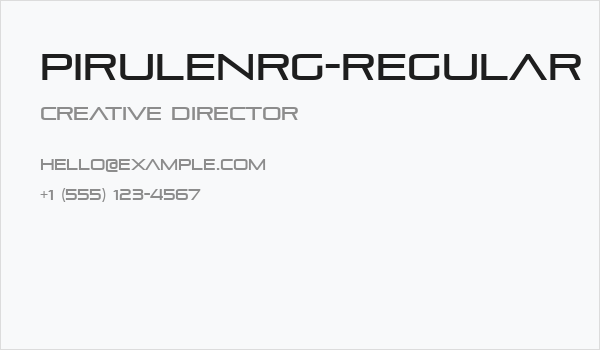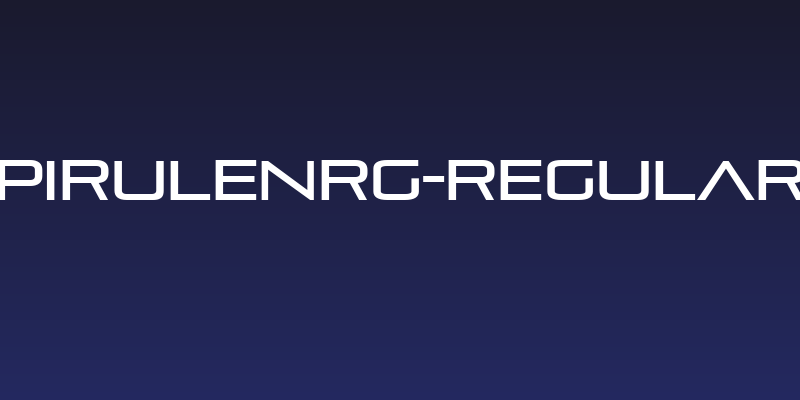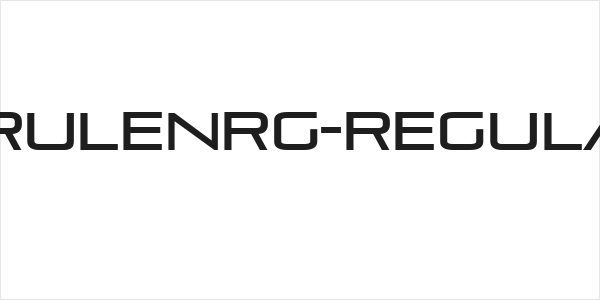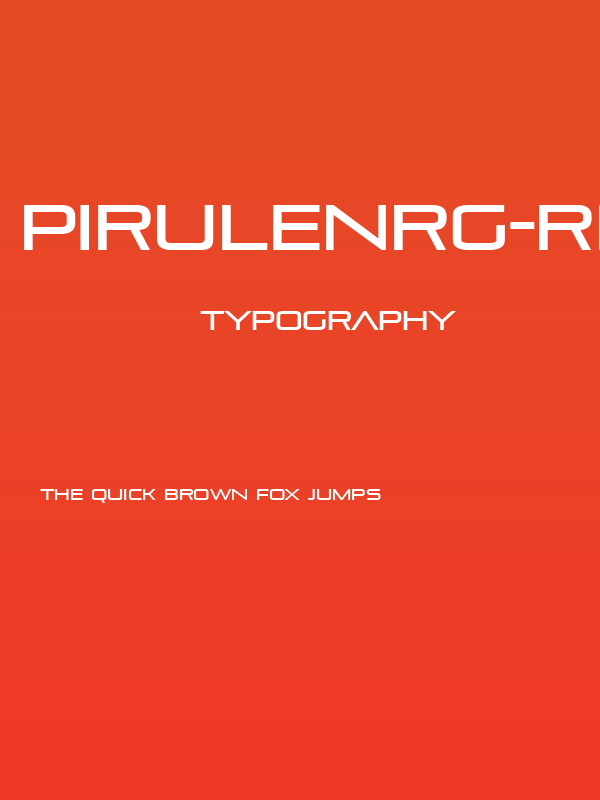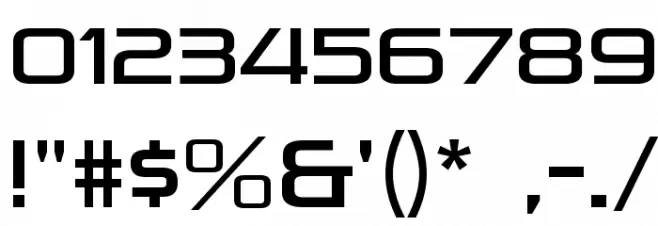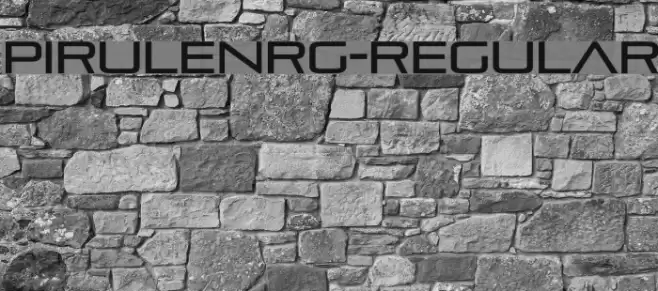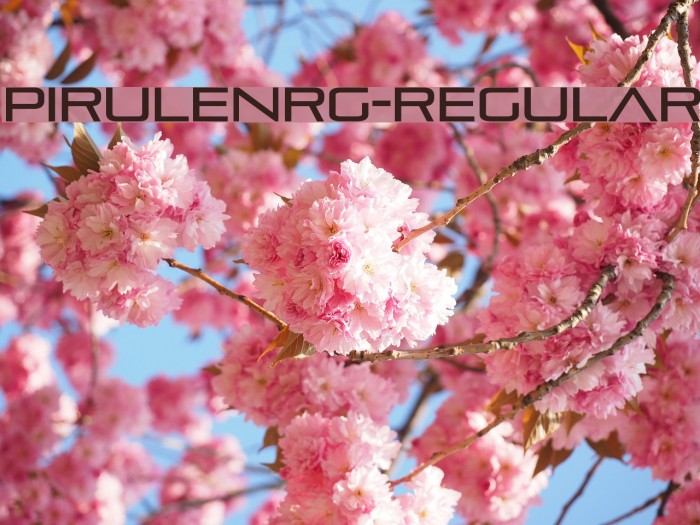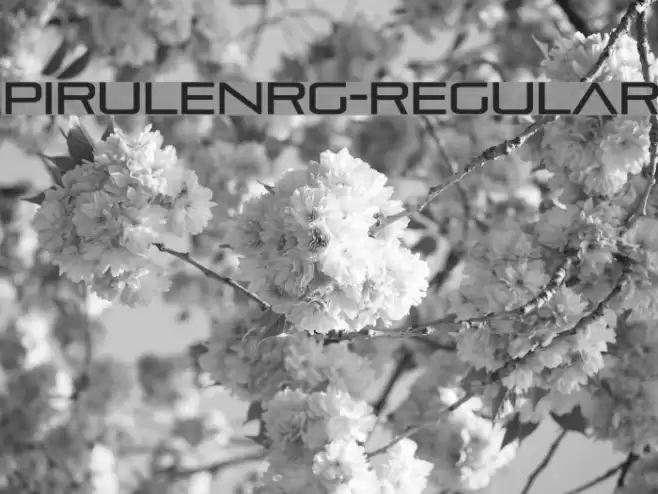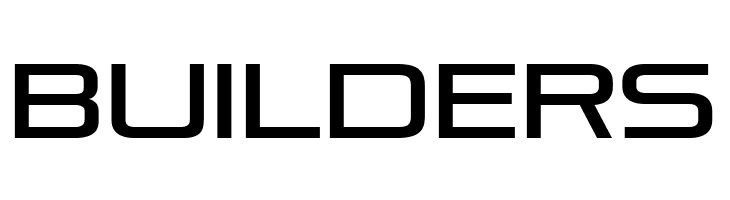
PirulenRg-Regular Font
PirulenRg-Regular Description
This font features a futuristic and geometric design, characterized by its clean lines and angular shapes. The uppercase letters are bold and wide, with a consistent stroke width that gives a modern and sleek appearance. The lowercase letters maintain the geometric style, offering a cohesive look across different text sizes. Numbers are designed with the same precision, ensuring readability and uniformity. Special characters are distinct and maintain the overall aesthetic, making this font versatile for various applications.
| Use Case | Headlines, Logos, Digital interfaces |
| Proposed Projects | Ideal for technology branding, sci-fi themed projects, modern logos, and digital interfaces. |